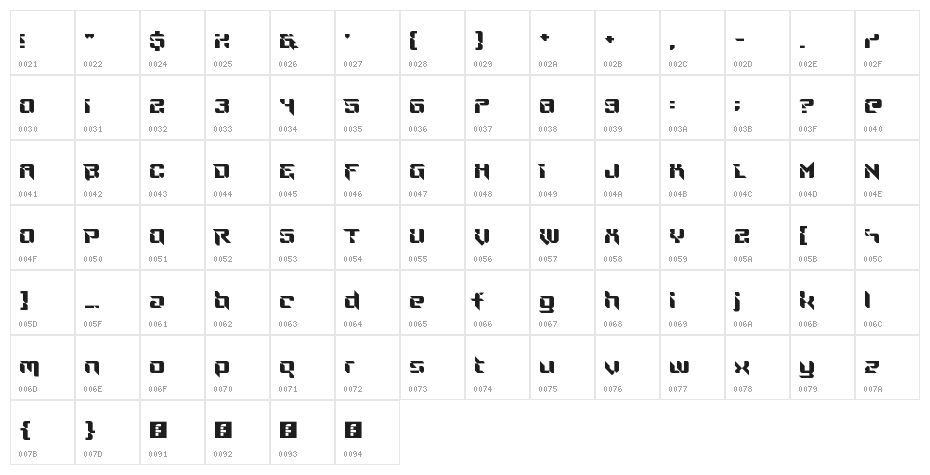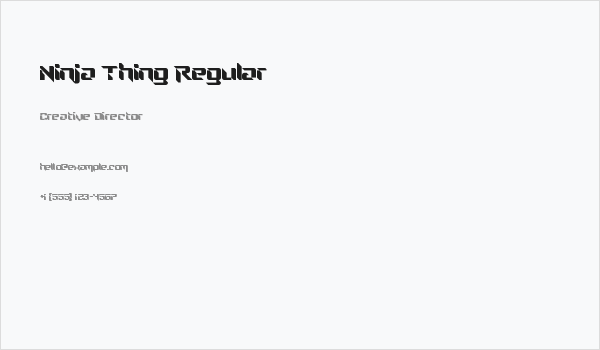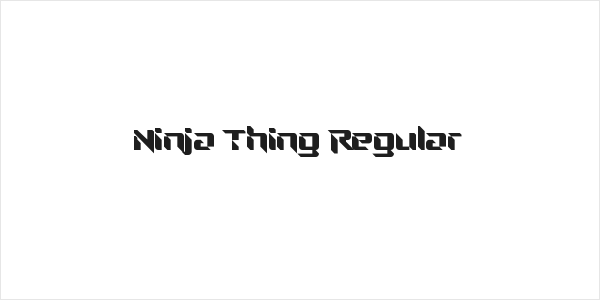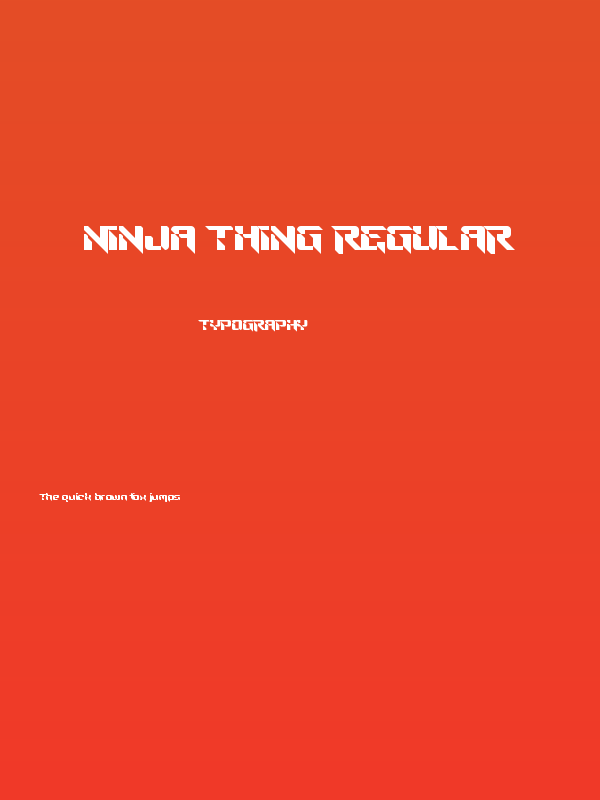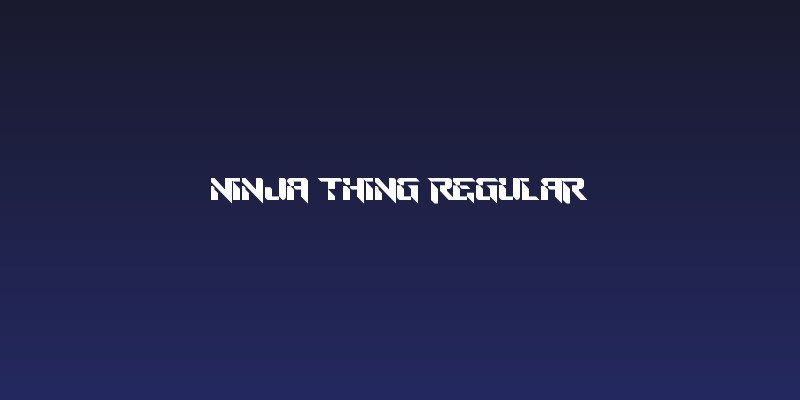
Ninja Thing Regular Font
Ninja Thing Regular Description
This font features a bold, geometric design with sharp angles and a futuristic aesthetic. The characters are constructed with a mix of solid and cut-out sections, creating a dynamic and edgy look. The uppercase and lowercase letters maintain a consistent style, with a strong emphasis on angular forms. Numbers and special characters follow the same design principles, ensuring uniformity across all glyphs. The font's unique style makes it stand out, ideal for projects that require a modern and striking appearance.
Proposed ProjectsIdeal for video game titles, sci-fi movie posters, tech branding, and edgy graphic designs.